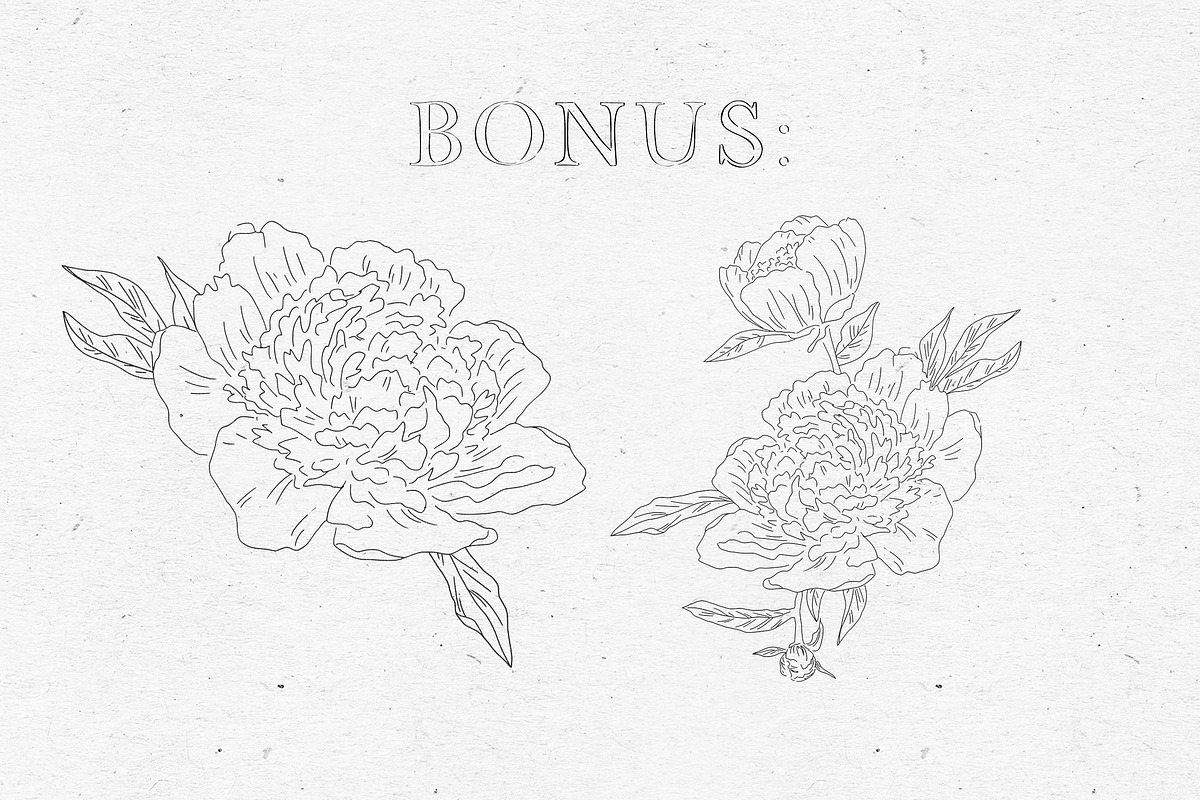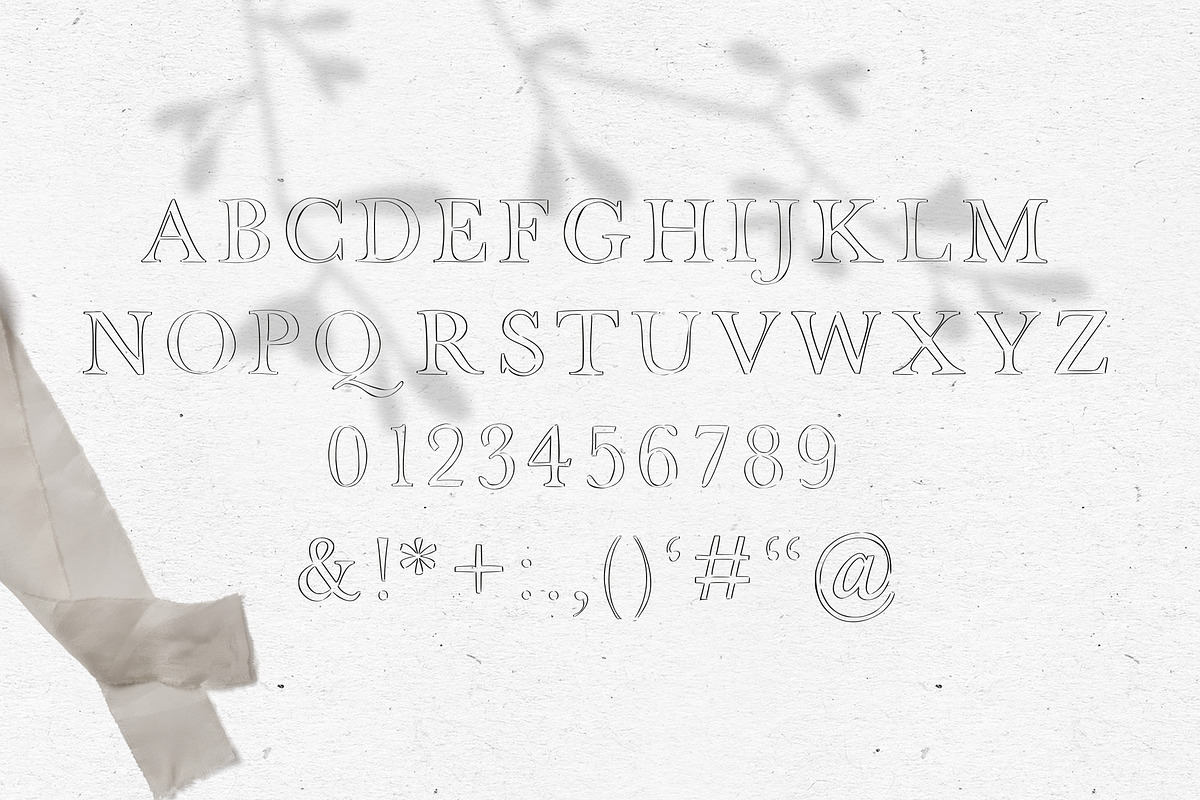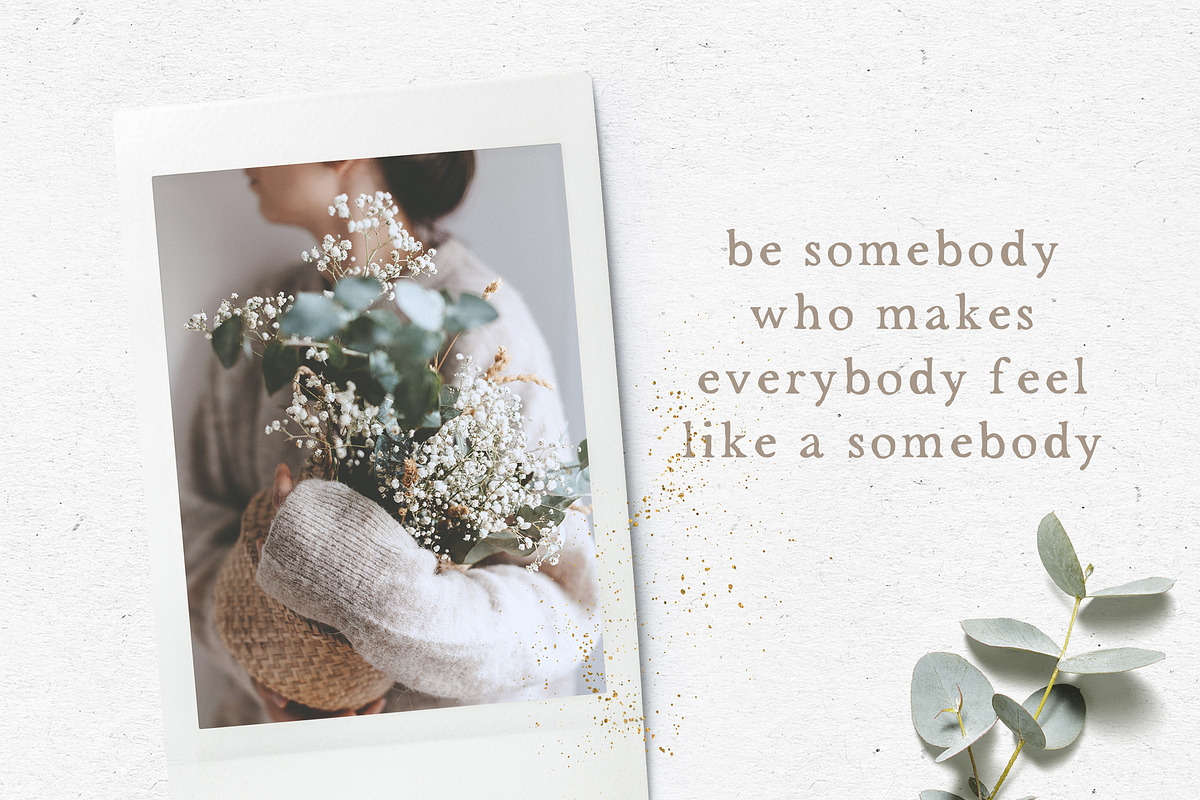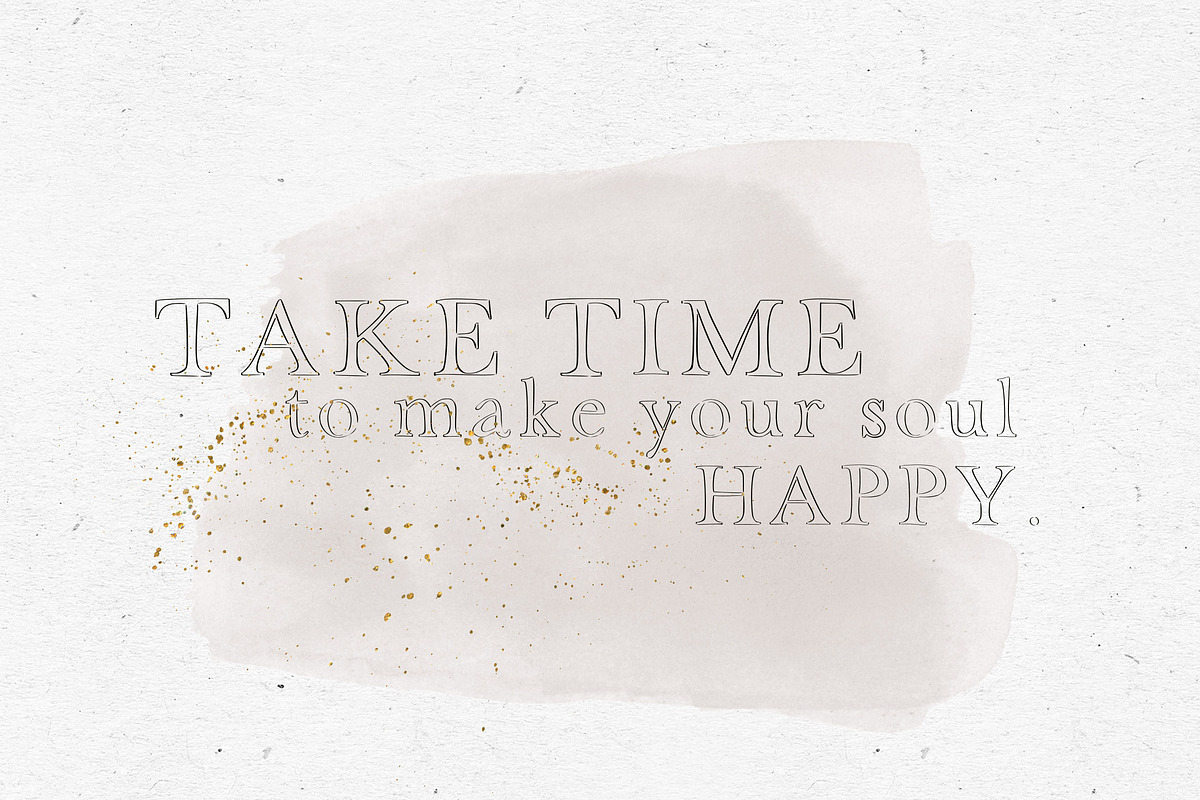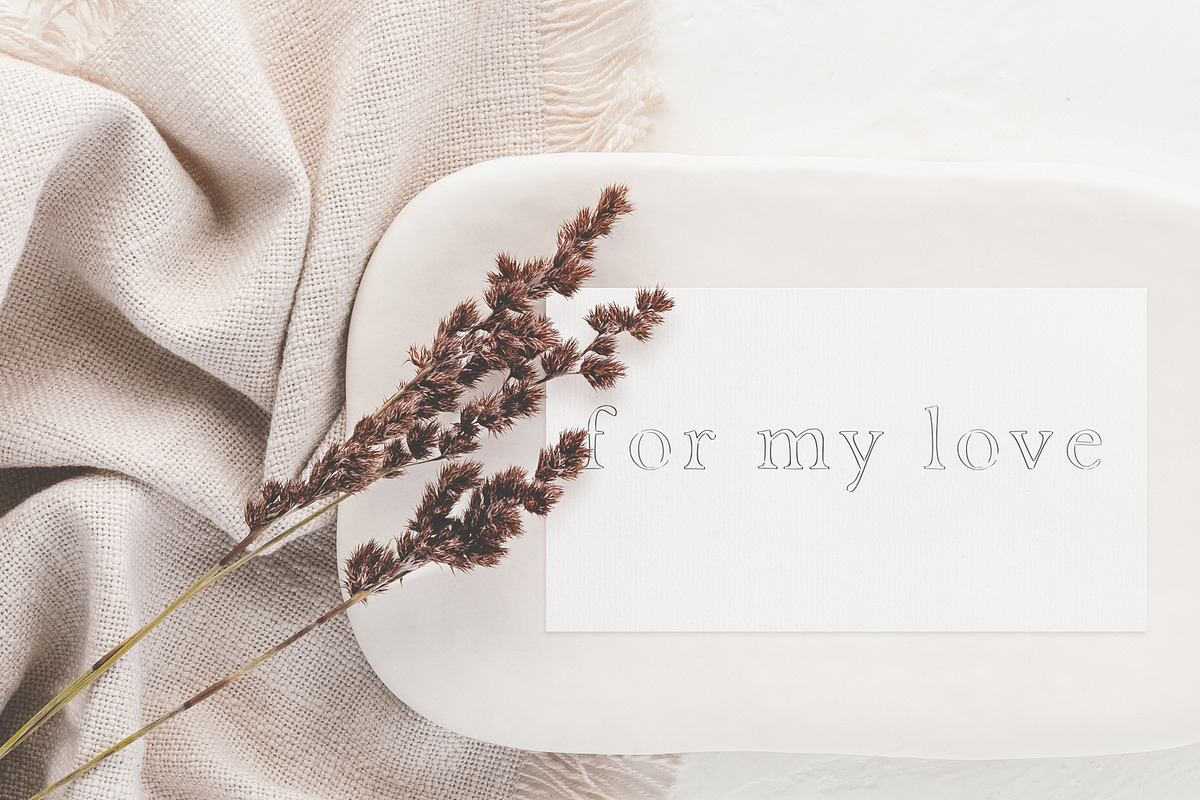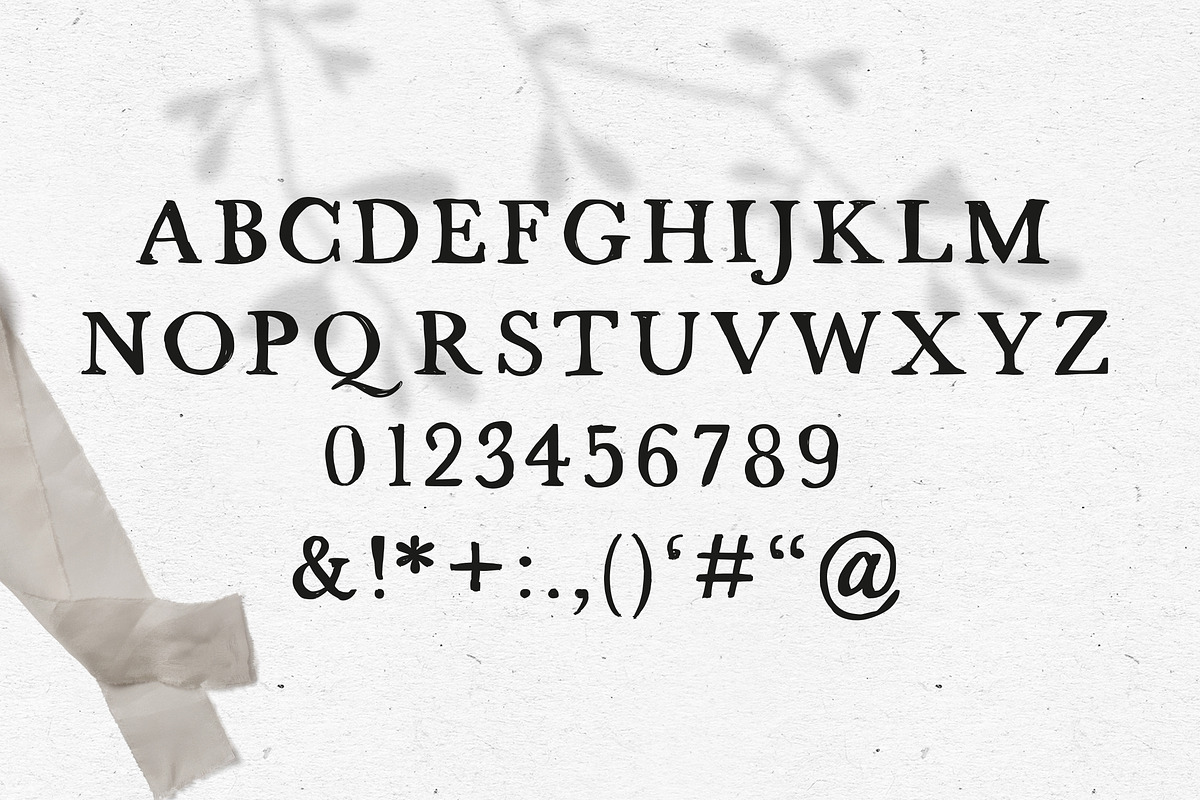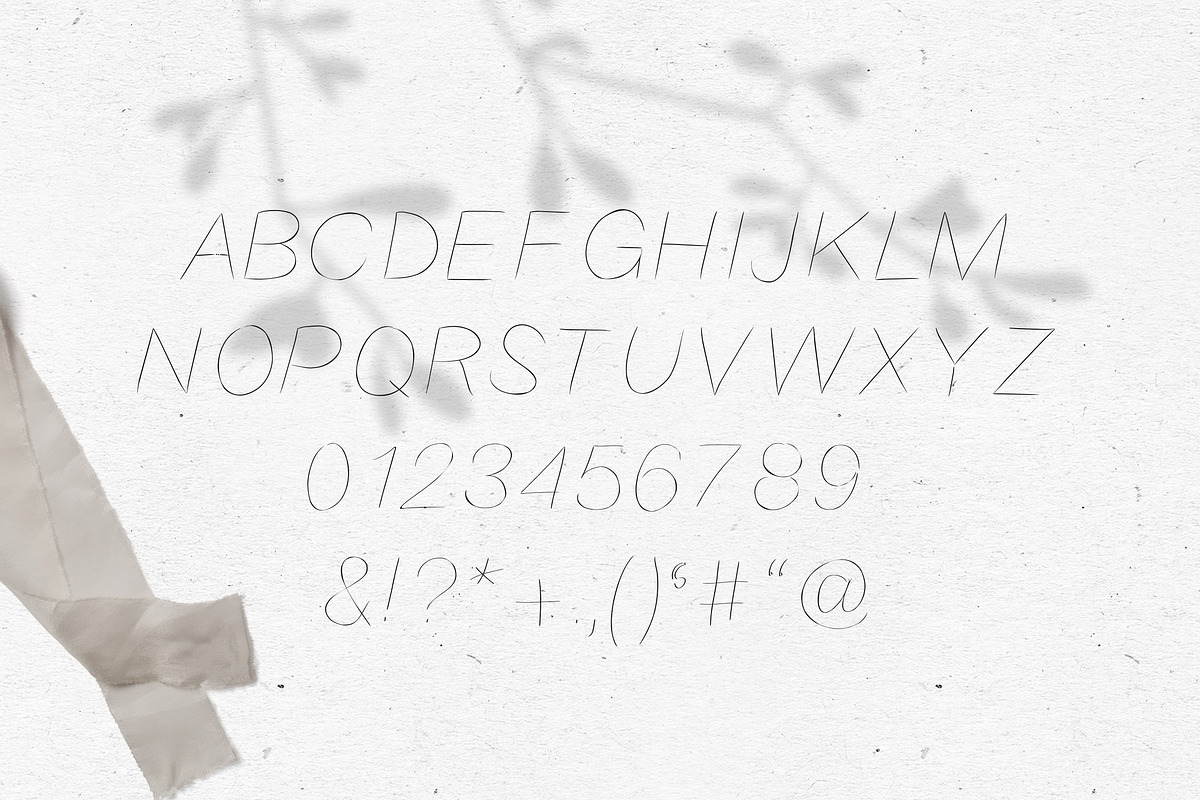
FONT DUO / STRANDLIEBE & kleinigkeit
Why FONT DUO / STRANDLIEBE & kleinigkeit is worth a look
FONT DUO / STRANDLIEBE & kleinigkeit by KruthDesign fits naturally into Branding, posters, packaging, typography.